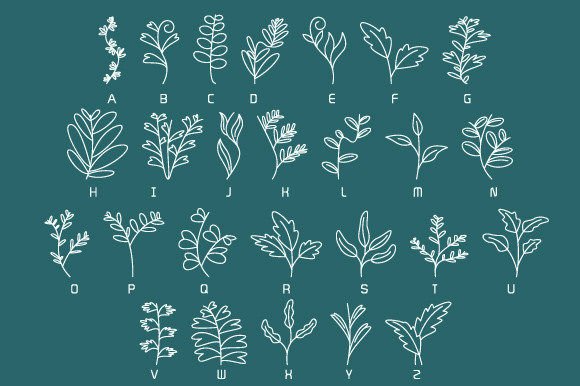
Leavy Leaf Font
About Leavy Leaf Font
Introducing “Leavy Leaf,” a charming and versatile dingbats font that celebrates the beauty of leaves and branches. This delightful font is packed with a collection of hand-drawn leaf and branch illustrations, perfect for adding a touch of nature-inspired whimsy to your creative projects.
Leavy Leaf offers a wide range of leaf and branch glyphs, each uniquely designed to bring a sense of organic beauty to your designs. Whether you’re crafting handmade cards, designing digital artwork, creating presentations, or exploring various creative endeavors, Leavy Leaf is your go-to font for all occasions.
With Leavy Leaf, you can easily incorporate the intricate leaf and branch illustrations into your projects. Simply type out the corresponding letter or character to access the desired glyph and let your creativity flow. Mix and match different leaves and branches to create captivating patterns, frames, or decorative elements that truly stand out.
Whether you’re looking to add a touch of nature to your wedding invitations, create botanical-themed logos, or enhance your digital artwork with a dash of foliage, Leavy Leaf has you covered. Its cute and whimsical style brings a sense of charm and playfulness to your designs, making them visually appealing and memorable.
Leavy Leaf is a versatile font that can be used across various mediums and platforms. From digital design software to crafting tools, this font seamlessly integrates into your creative workflow. Adjust the size, color, and positioning of the leaves and branches to suit your project’s requirements and watch as your designs come to life.
The possibilities are endless with Leavy Leaf. Let your imagination run wild as you explore its delightful collection of leaf and branch illustrations. Embellish your crafts, breathe life into your digital designs, and add a touch of nature’s beauty to your presentations and greeting cards.
Whether you’re a professional designer or a creative enthusiast, Leavy Leaf is sure to become your go-to font for all things leafy and lovely. Its versatility, charm, and adorable leaf and branch illustrations make it a must-have in your font collection.
So, embrace the whimsical beauty of leaves and branches, and let Leavy Leaf be your trusted companion in your creative endeavors. Add this cute and versatile dingbats font to your toolbox and watch as your projects flourish with the organic charm of Leavy Leaf.